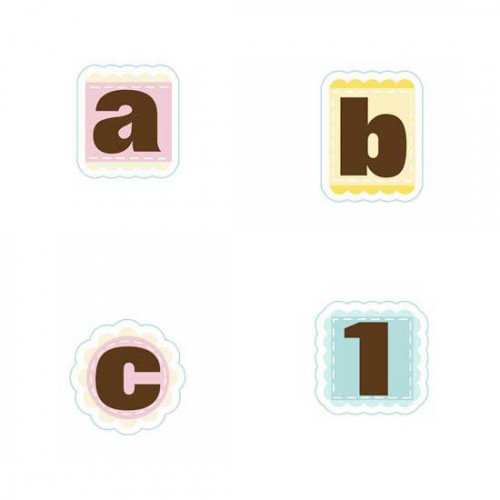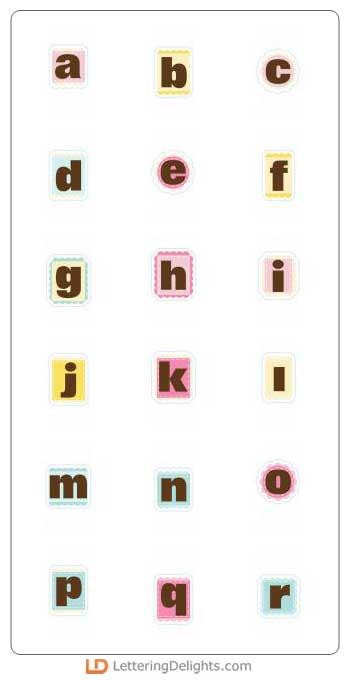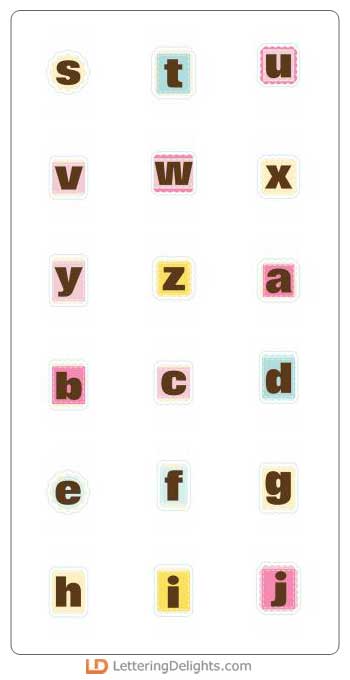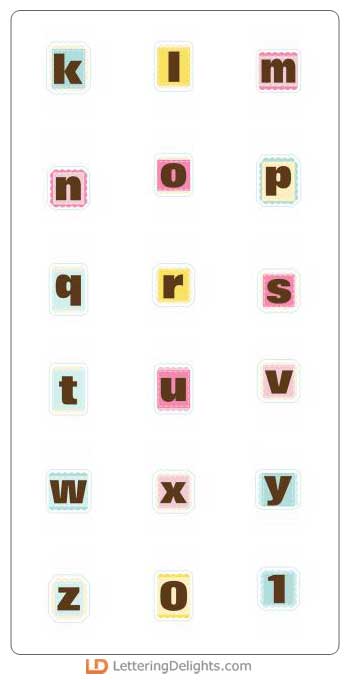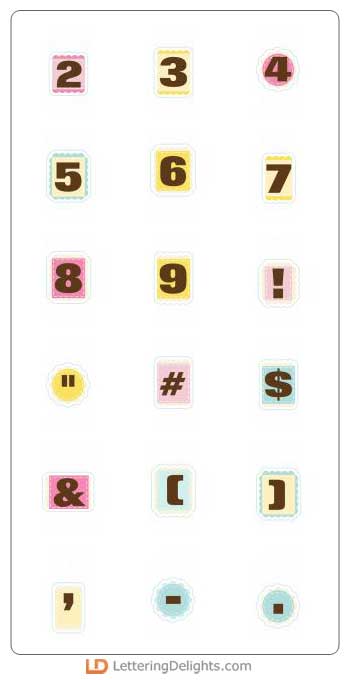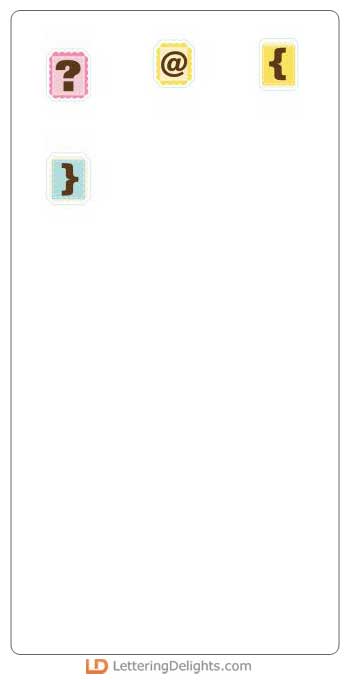
Sweet Cake is the perfect alphabet to compliment all the elements of the Hello Cupcake collection. But don't overlook its ability to create perfect invitations, cards, layouts or any creative paper project associated with babies, Springtime, and little girls, along with all those amazing birthday parties you'll host...so many applications!